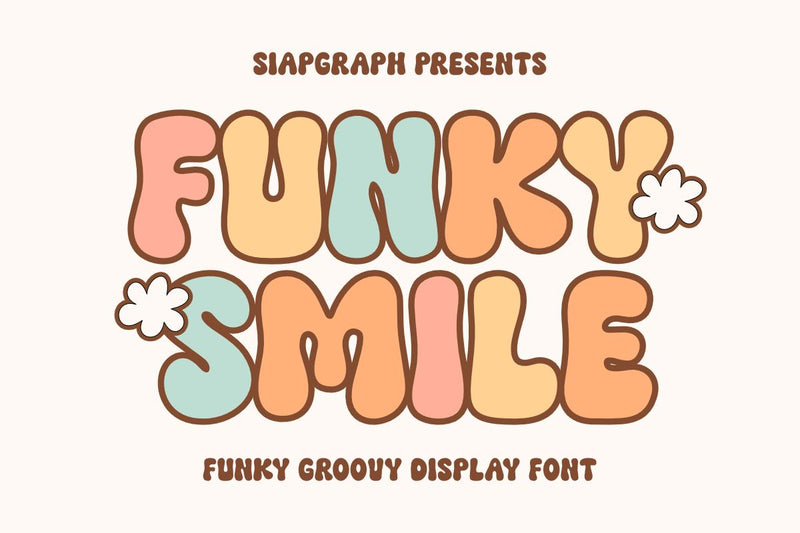
Funky Smile - Funky Groovy Font
Funky Smile is a funky groovy retro display font. font inspired by retro style sublimation design. This font is very suitable for Print on Demand, Branding, Printing, Sublimation, Knitting, Embroidery and others. This font is also perfect for Easter, Valentine's, Birthday, School, Teaching, Christmas, Halloween, St Patrick's and other themes.